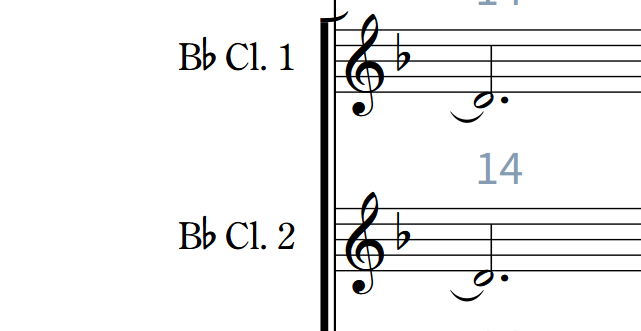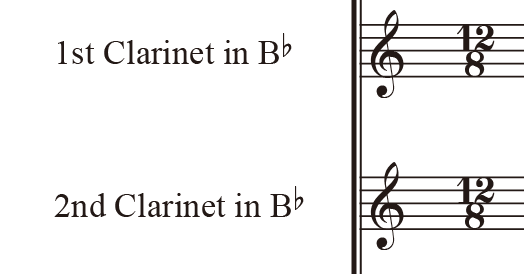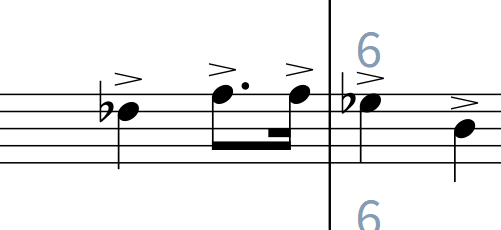
How to change {@flat@} font and baseline?
I have set my music font to Chaconne Ex, so I would like to change the font of musical symbols used in text tokens, such as {@​flat@} for instrument and part layout names, from Bravura to Chaconne Ex. However, I don’t know how to do this.
I have specified Chaconne Ex Text as the “Music text font,” but the ♭ symbol still appears to be in Bravura Text.
(For regular text, I have specified Century Oldstyle.)
Chaconne’s flat is slimmer and straighter than Bravura’s:
Also, the flat symbols in these text elements align with the baseline of other characters, but is there a way to make them slightly superscripted, like Finale’s flat (Ctrl + Shift + F)?
The flat glyph in the staff label comes from Library / Character Styles / Music Text. There are superscript settings there too. Or you can just manually create the entire staff label including the flat if you’re unhappy with Dorico’s positioning.
I created a new character style and manually set the staff name, which allowed me to display it as I wanted in the score.
However, the part name displayed in the part layout gets overridden by the paragraph style for part layout names, so the Character Styles I set ends up being meaningless.